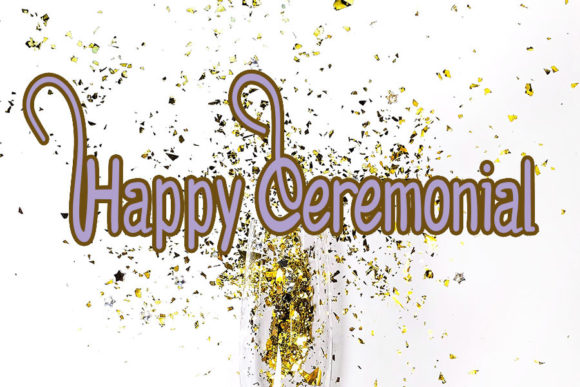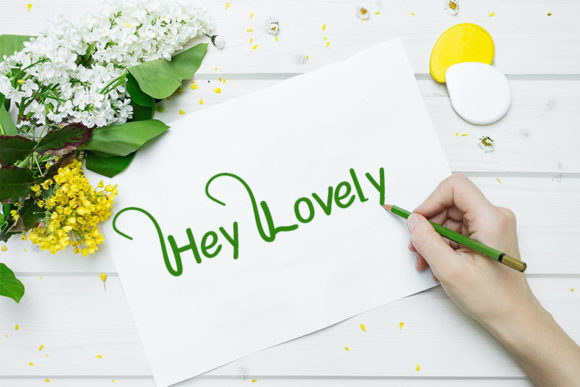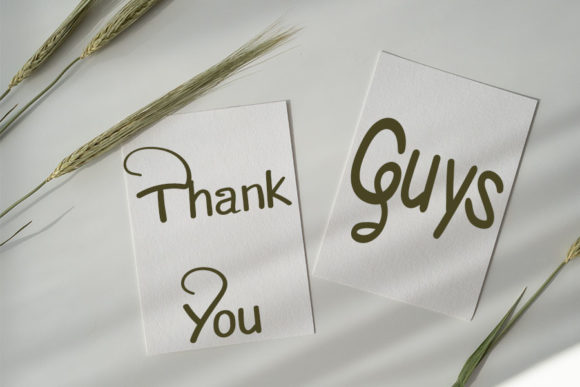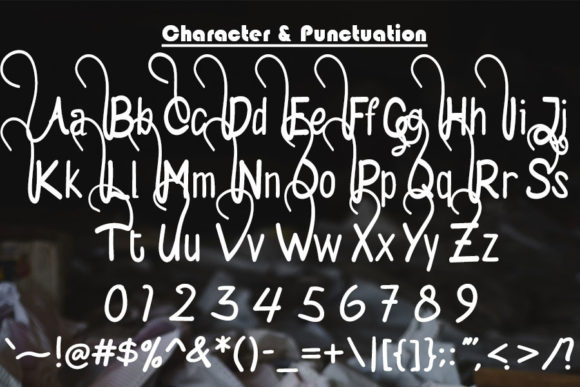
The Ultimate Guide to Doughty Font: A Unique and Cool Display Font
I’ll never forget the time I was working on a project for a children’s book and I just couldn’t find the right font. The client wanted something fun, playful, and eye-catching, but everything I tried seemed either too boring or too over-the-top. That’s when I stumbled upon the Doughty font, and it was love at first sight! 💕
Whether you’re a designer, crafter, or creative hobbyist, you’re probably always on the lookout for that perfect font to make your project stand out. And if you’re working on something that requires a touch of beauty, like cartoon-related designs, children’s games, quotes, titles, brand names, book covers, or posters, then Doughty is definitely worth checking out.
An Honest Review of Doughty Font
What I Love About Doughty Font ✨
- Unique and quirky design that’s perfect for making a statement
- Works great for both digital and print projects
- Easy to read, even at smaller sizes
- Supports multiple languages
- Extensive character set, including glyphs and stylistic alternates
- May not be the best choice for body text, as it’s a display font and can be overwhelming in large blocks of text
- Some users may find the font a bit too ornate or playful for certain projects ⚠️
The Backstory Behind Doughty Font
While the origins of the Doughty font are shrouded in mystery, it’s clear that the designer was going for a unique and playful vibe. Perhaps they were inspired by childhood memories of cartoons and comics, or maybe they just wanted to create a font that would bring a smile to people’s faces. Whatever the inspiration, the result is a font that’s both beautiful and fun to use.
Q: What type of projects is Doughty font best suited for?
A: Doughty font is perfect for projects that require a touch of beauty, such as cartoon-related designs, children’s games, quotes, titles, brand names, book covers, and posters.
Q: Is Doughty font easy to read?
A: Yes, Doughty font is designed to be easy to read, even at smaller sizes. However, keep in mind that it’s a display font, so it may not be the best choice for body text.